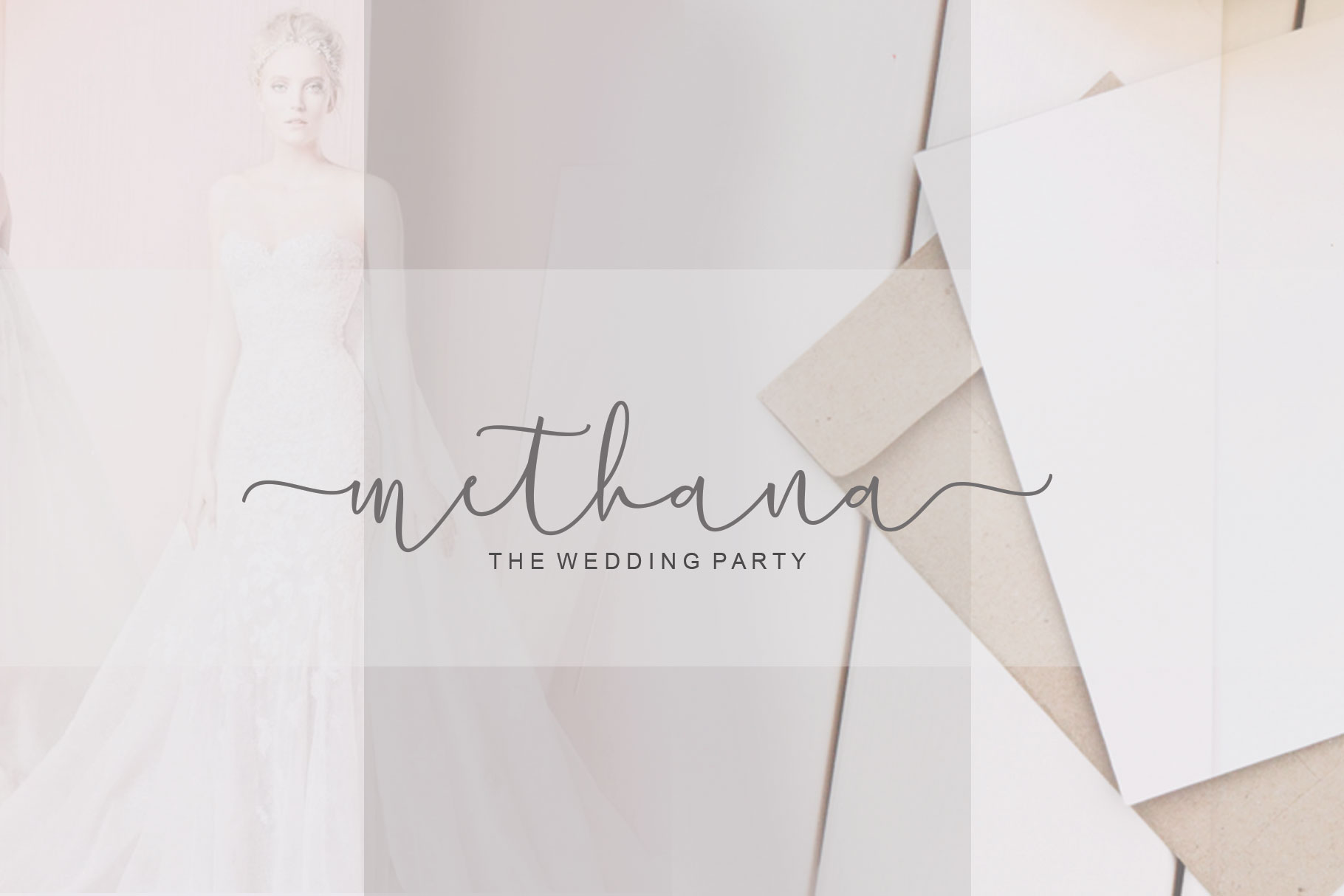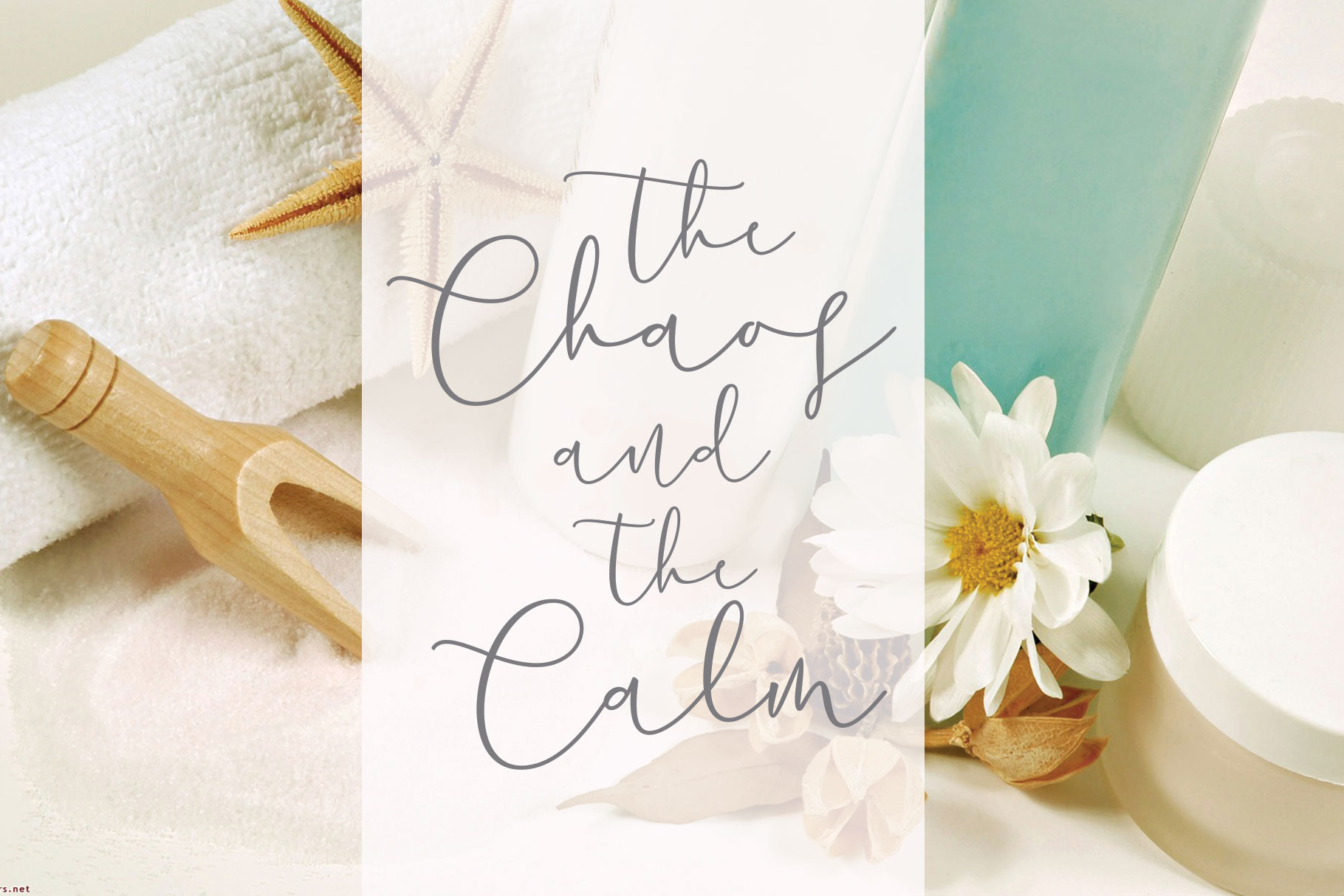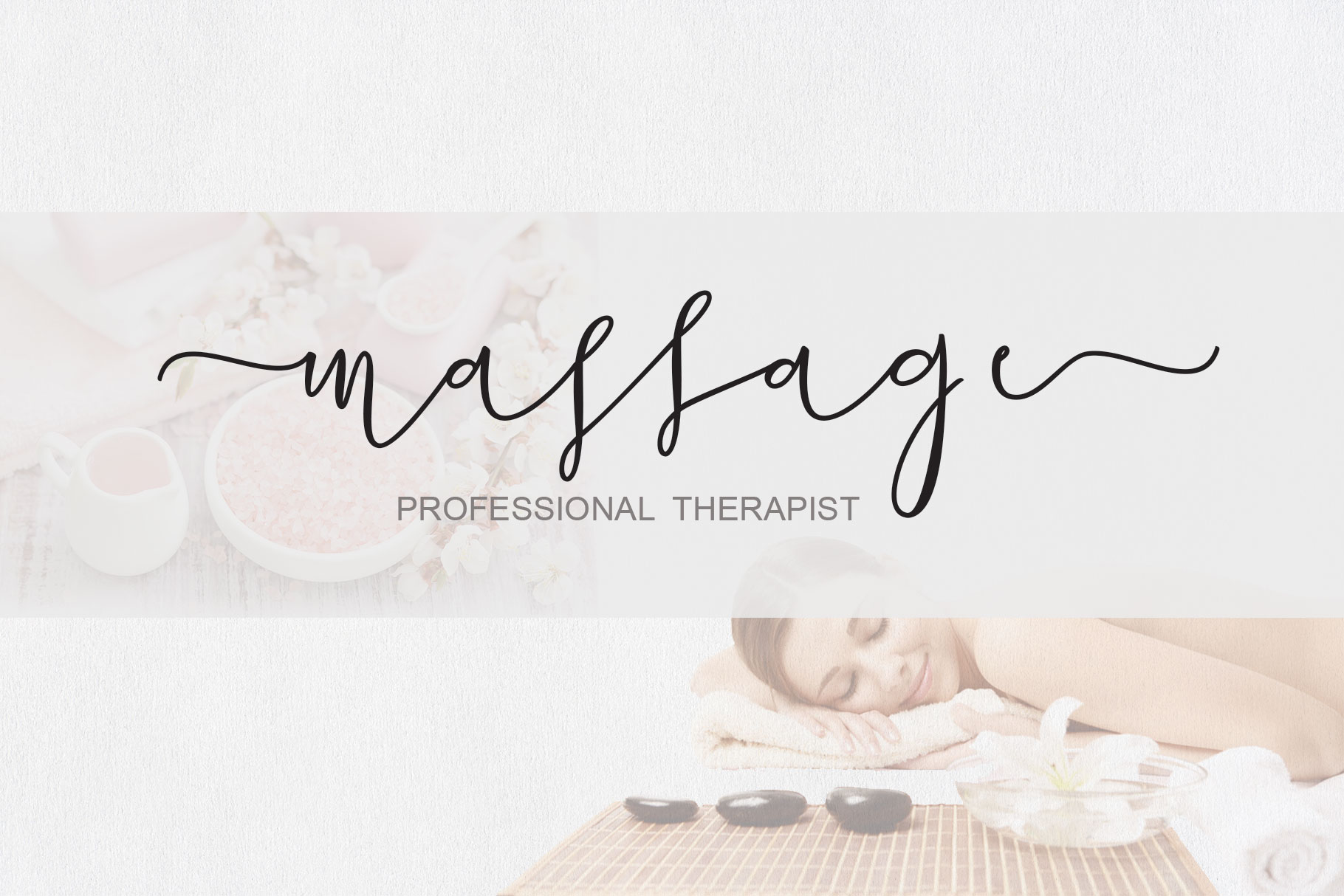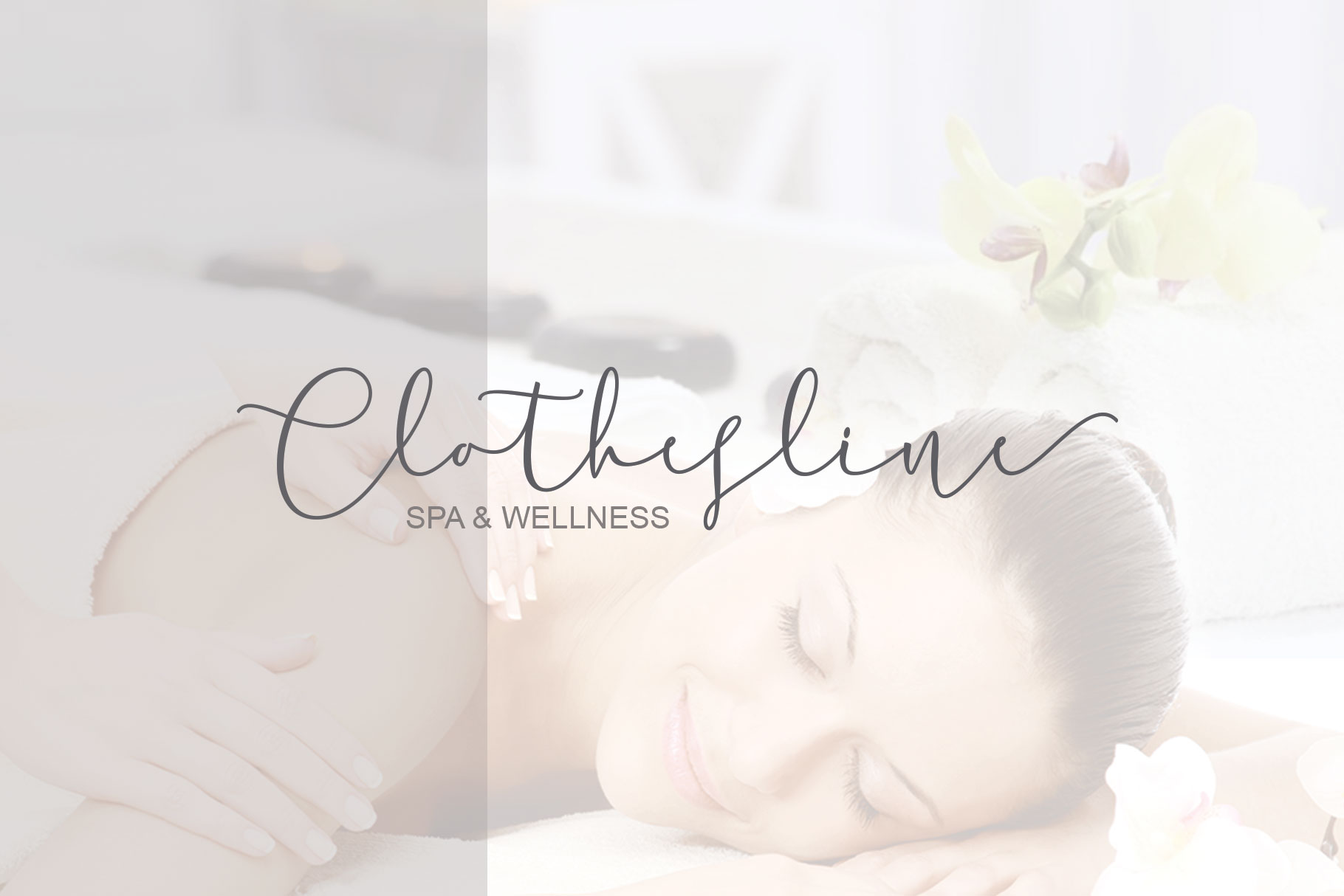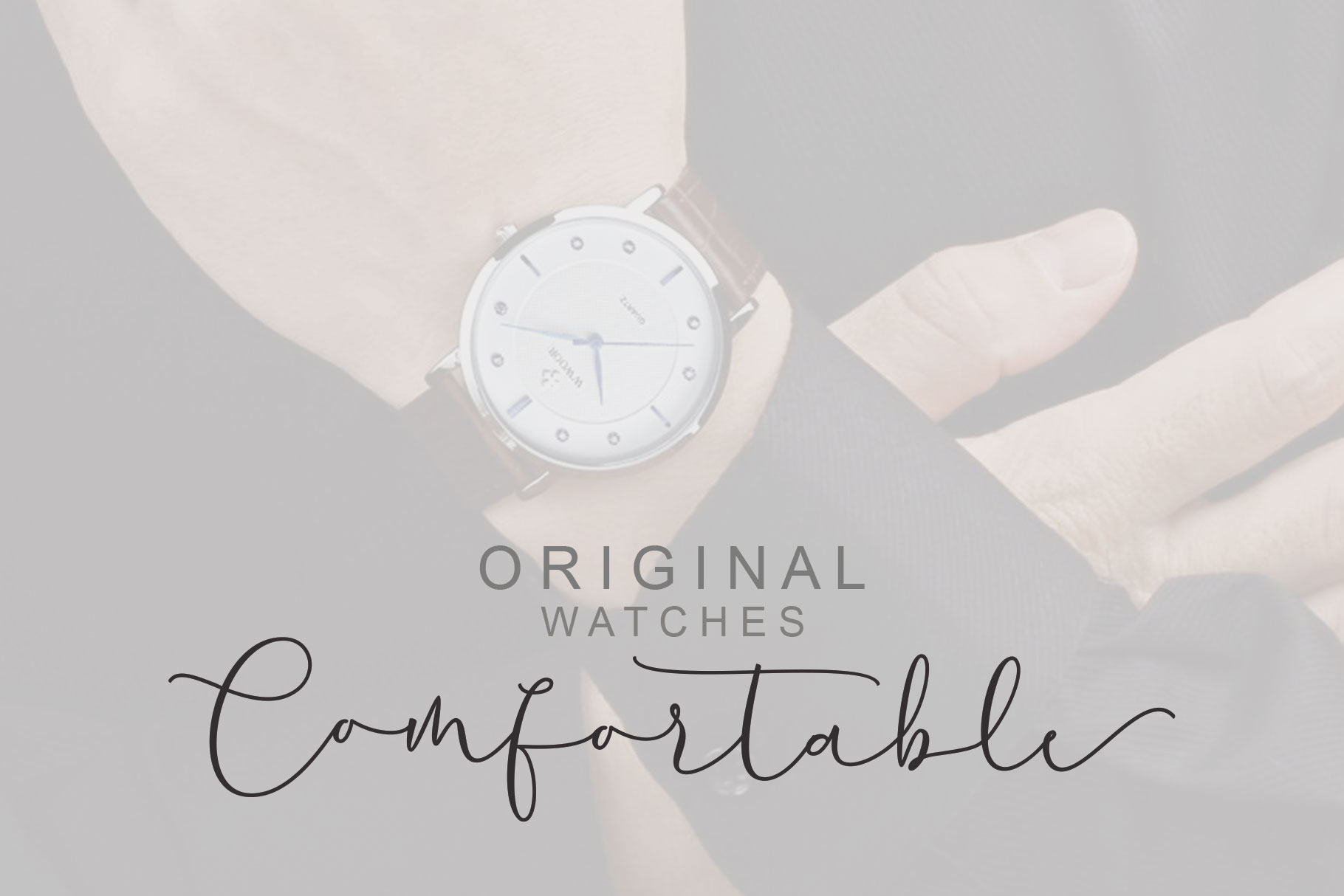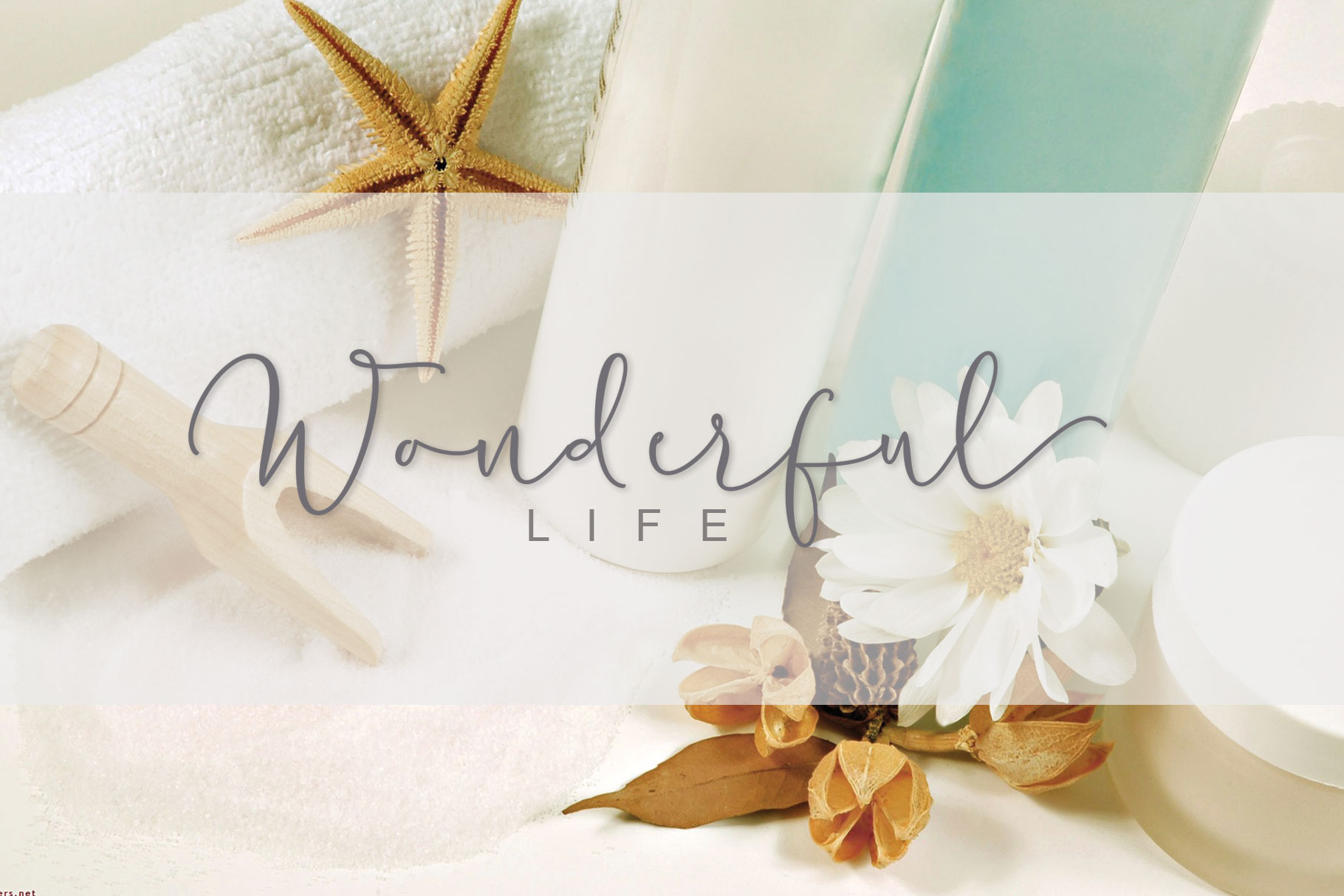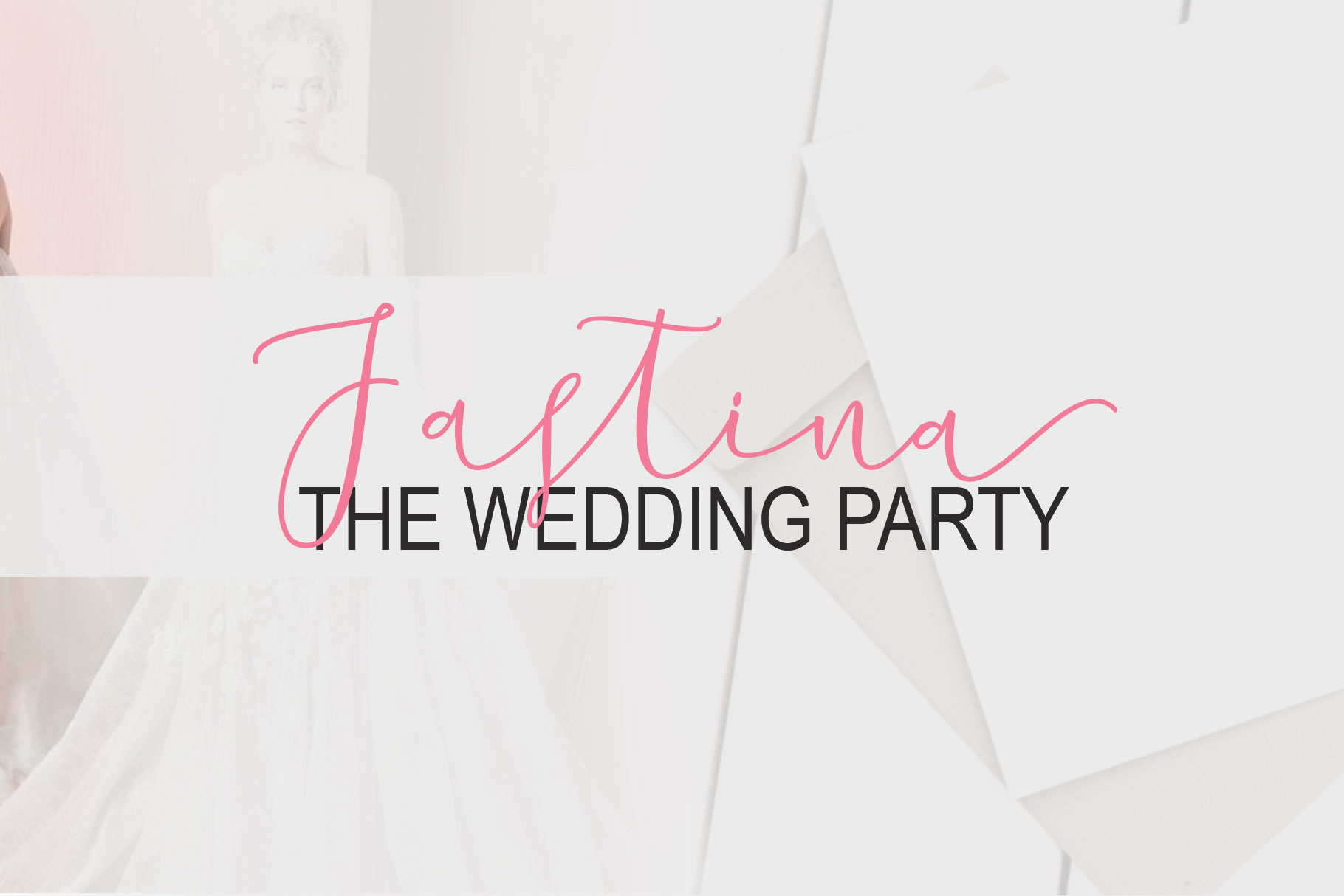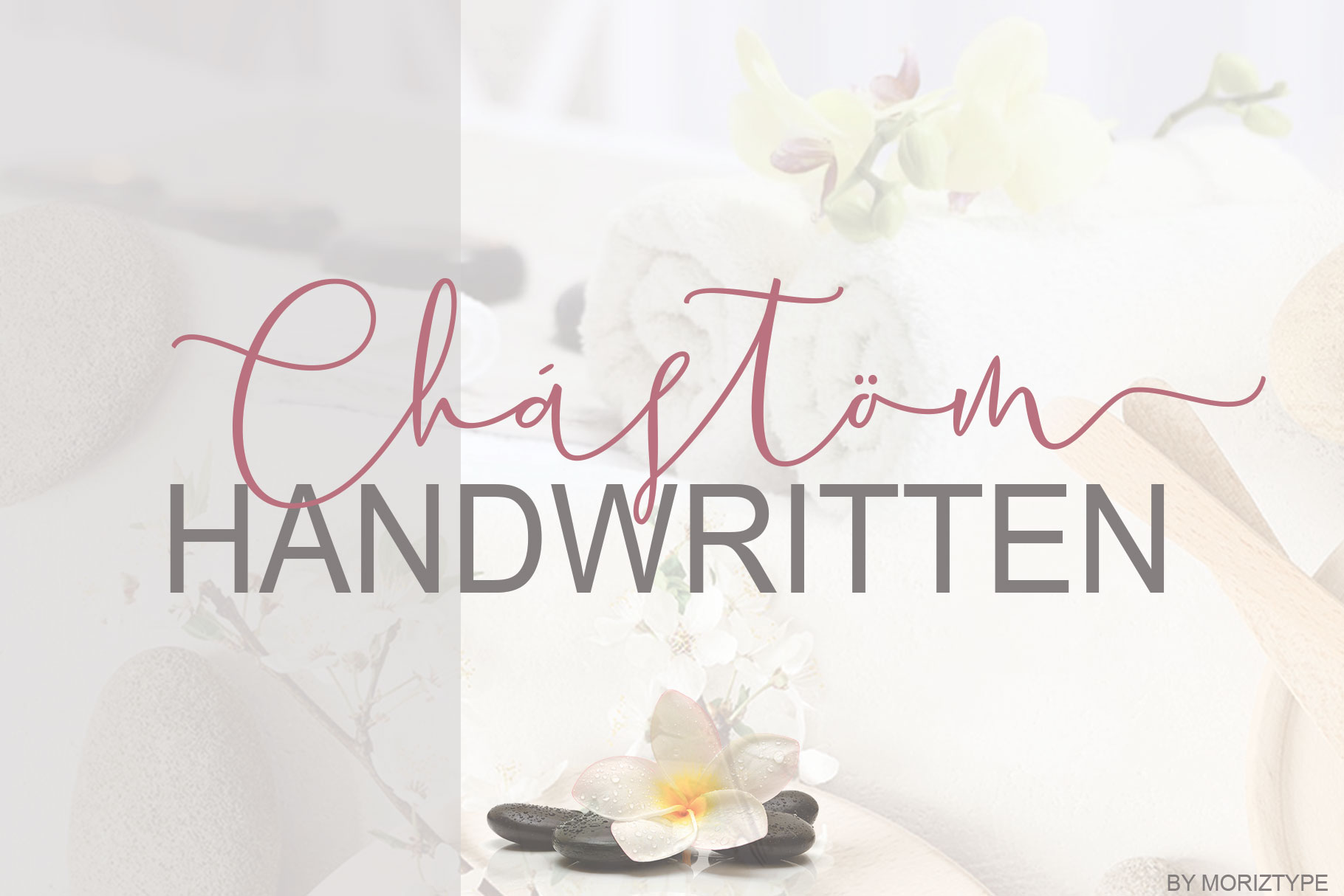
Chastum Font
About Chastum Font
Chastum is modern handwriting calligraphy, and has its own distinctive features with a feminine style. It is an extremely stylistic font, and one that can add a ton of romance and kindness to your creative projects.